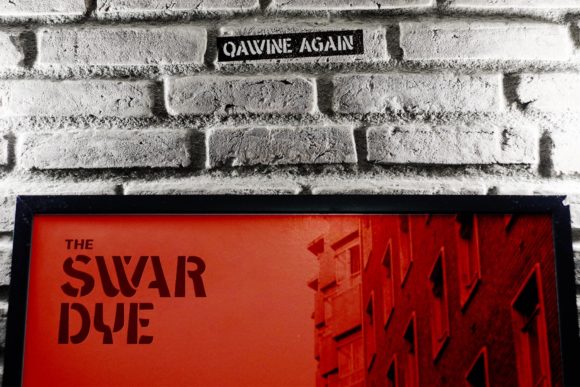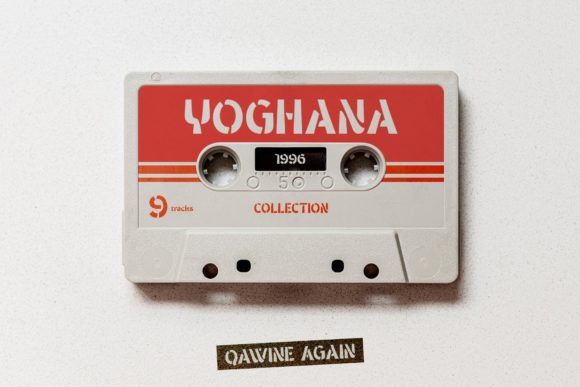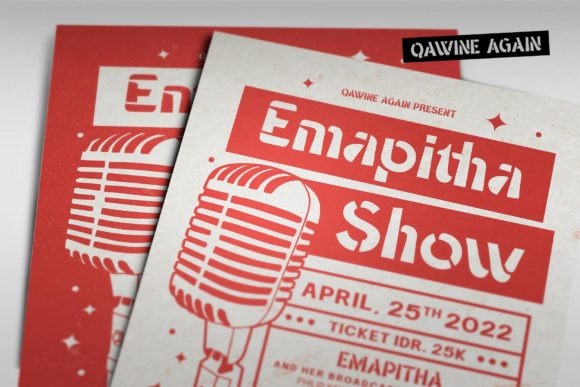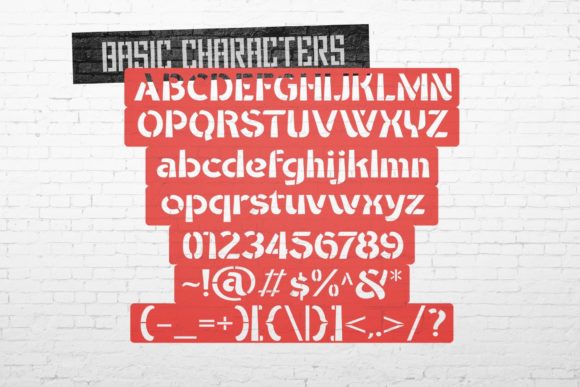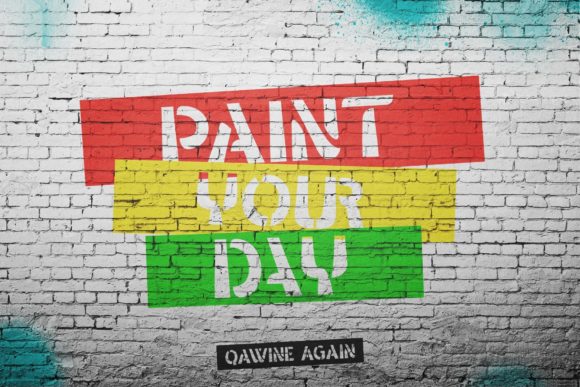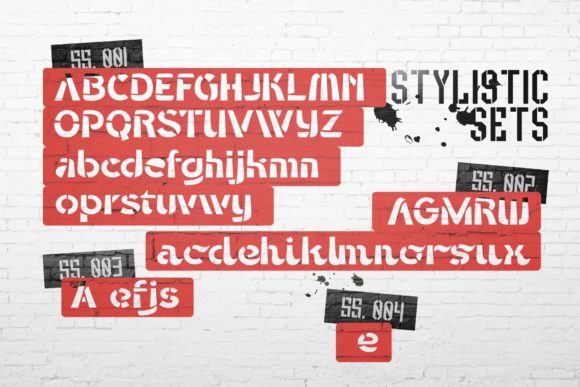
Introduction to Qawine Again Font
Qawine Again is a cool, bold and assertive display font.
Key Features of Qawine Again Font
Why Choose Qawine Again Font?